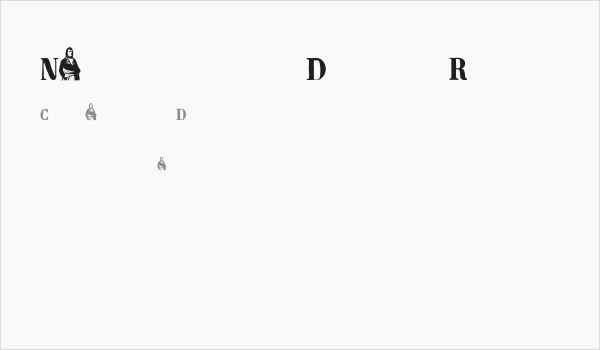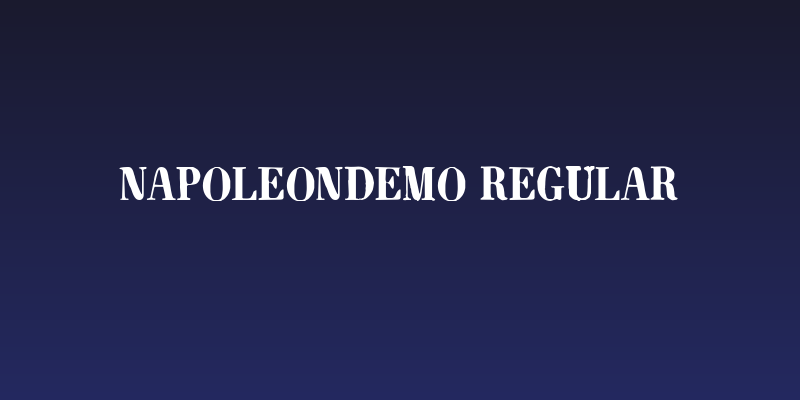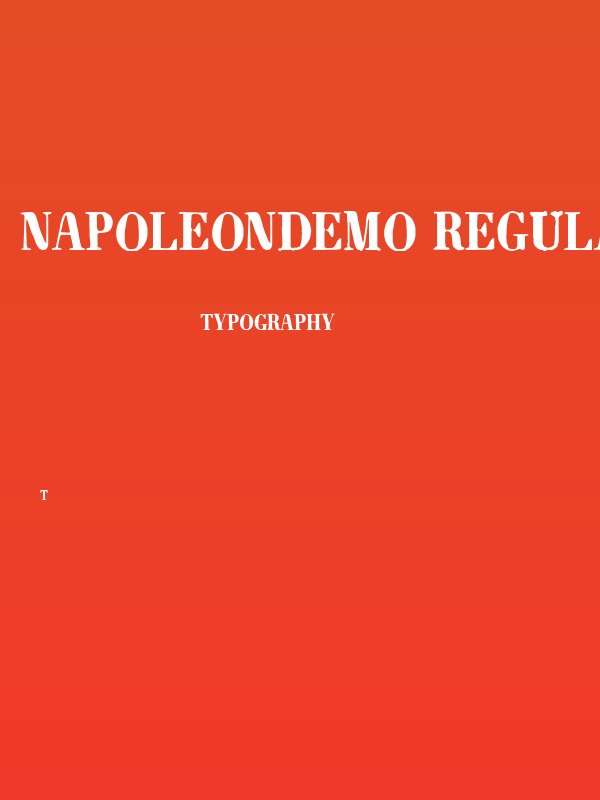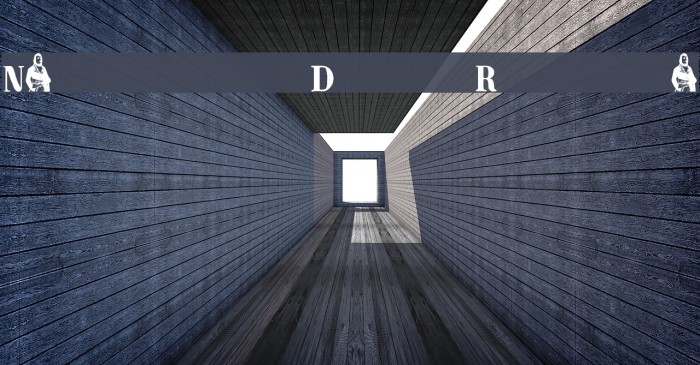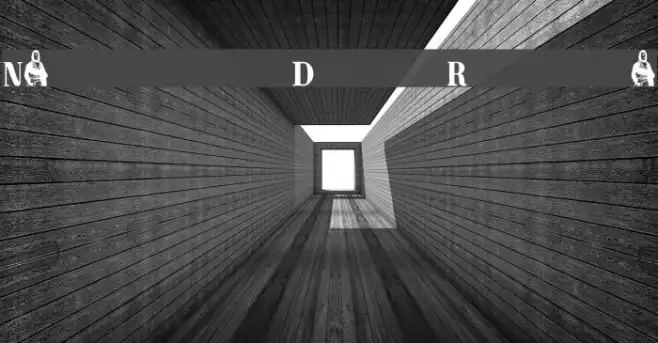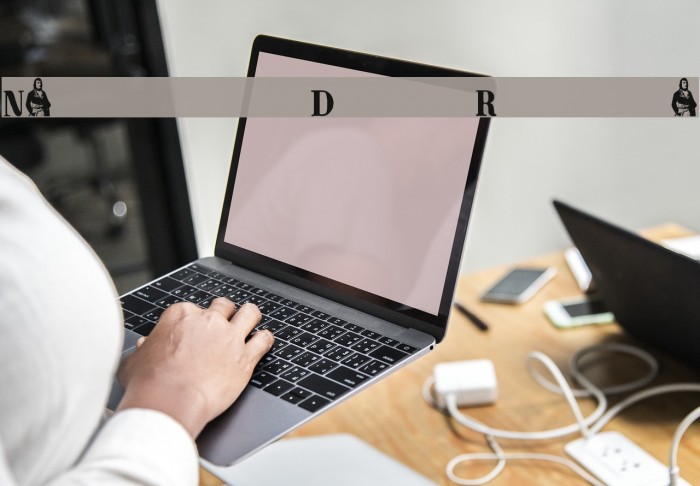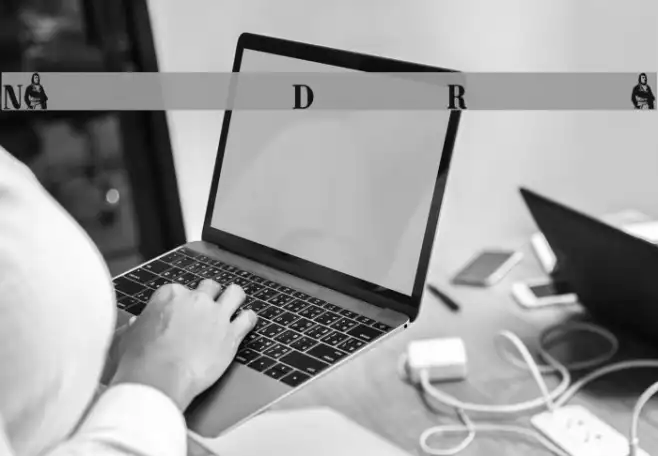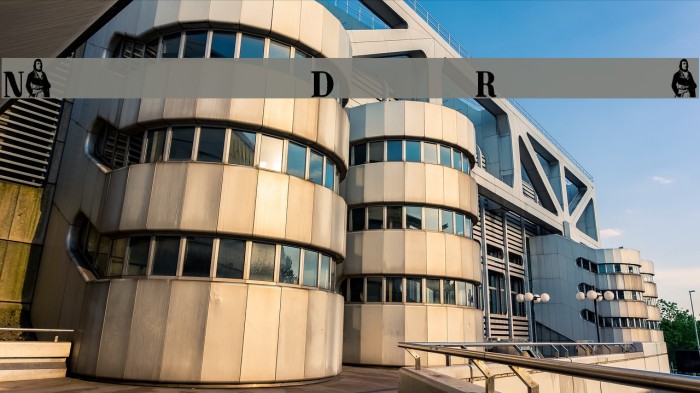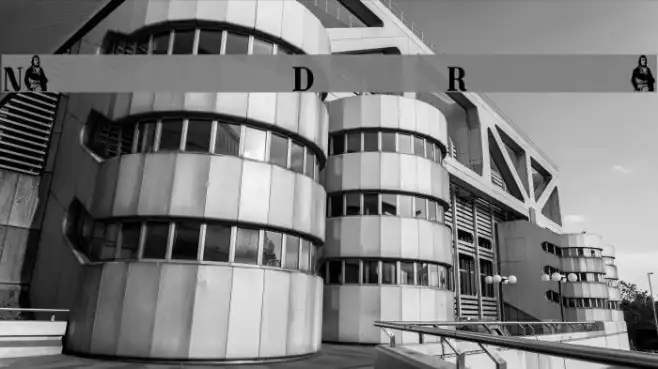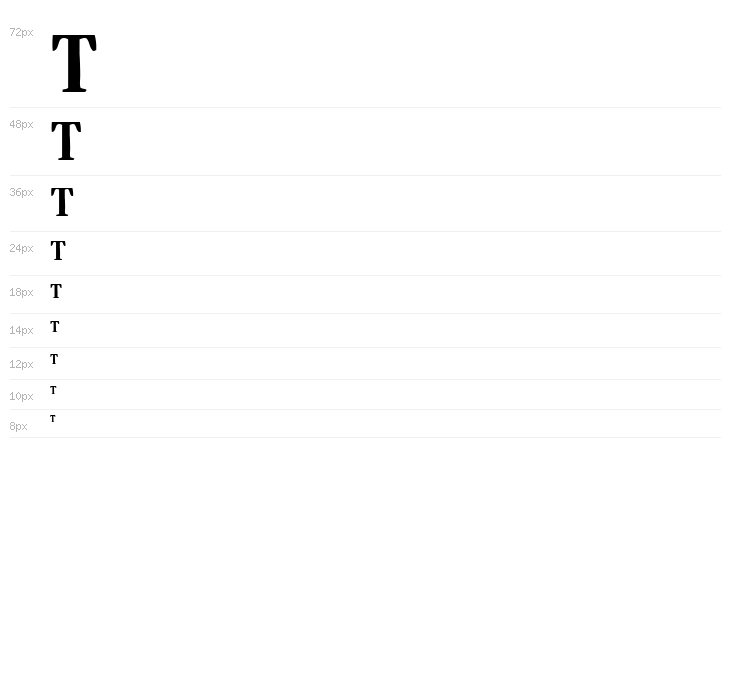
NapoleonDemo Regular Font
NapoleonDemo Regular Description
This font features a bold and dramatic serif style with a distinct vintage flair. The characters are characterized by thick, prominent strokes and sharp serifs that give it a strong presence. The uppercase letters are particularly striking, with a classic and authoritative appearance. The font's design is reminiscent of historical or traditional typefaces, making it suitable for projects that require a touch of elegance and sophistication. Its bold nature ensures that it stands out, making it ideal for headlines or titles that need to capture attention.
| Proposed Projects | Ideal for historical-themed designs, book covers, posters, and branding that requires a classic touch. |